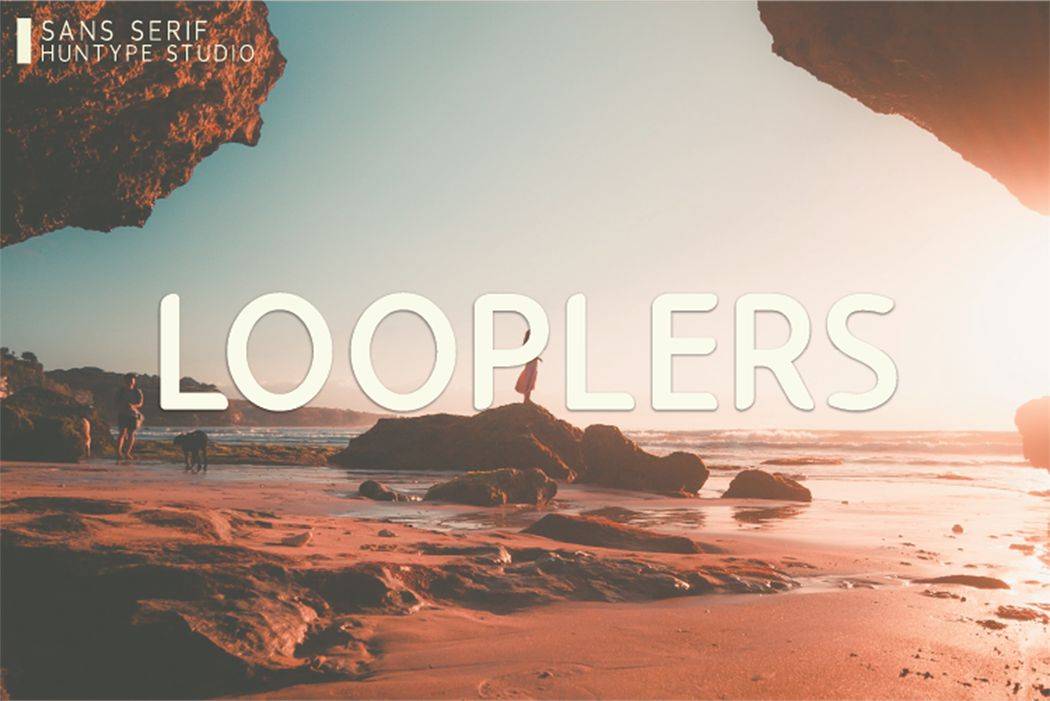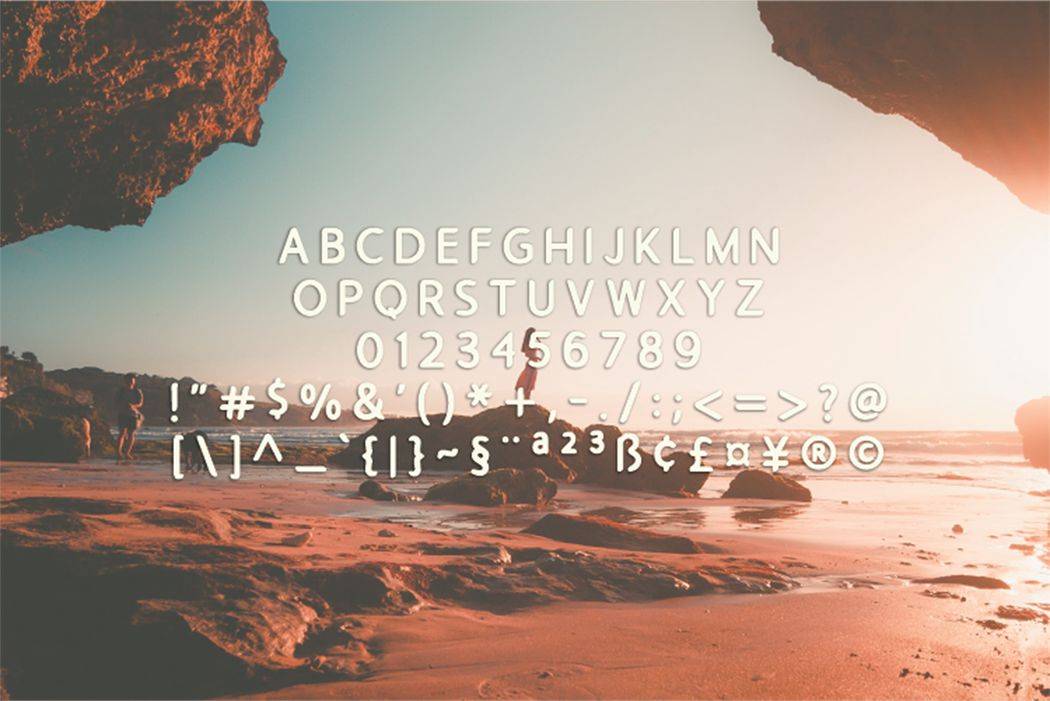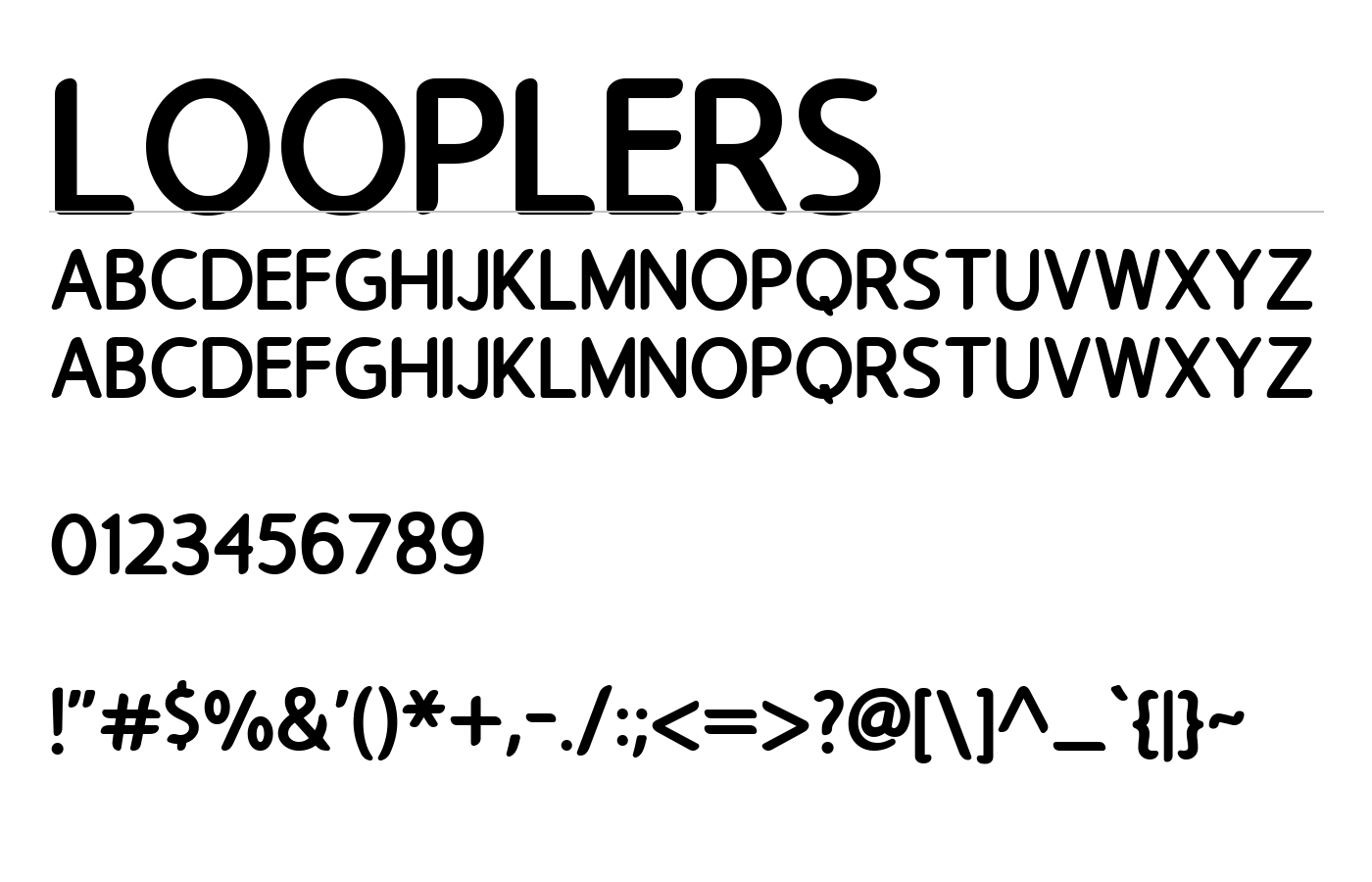
Looplers is a friendly and modern sans serif font with rounded edges and a clean, approachable style. Its uniform weight and slightly condensed letterforms make it highly readable and versatile, ideal for branding, headlines, and digital use where a warm yet professional tone is desired. This font’s playful curves and straightforward structure give it a contemporary feel that works well in casual and creative design projects.
Looplers Font
About Looplers Font
| Font family | Looplers Font |